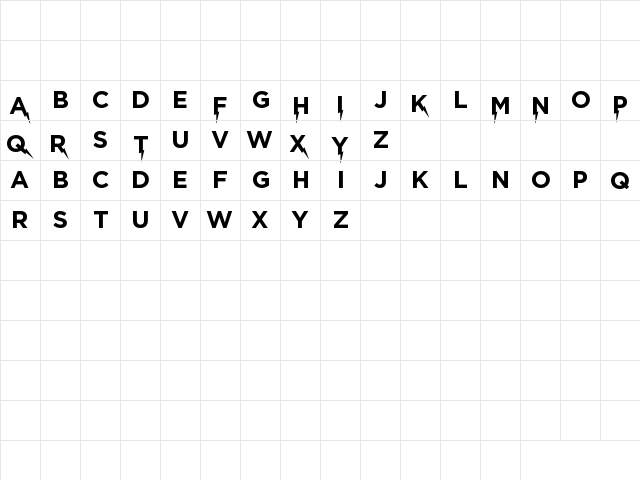
RKO Bold
Design Context for RKO Typeface
RKO takes a measured approach to typography — its balanced proportions and neutral character make it a reliable workhorse for both digital and print work. Its bold stroke weight gives it real presence on the page.
Pro Tip: Use RKO in both headline and body roles to test its range before committing to a single application.